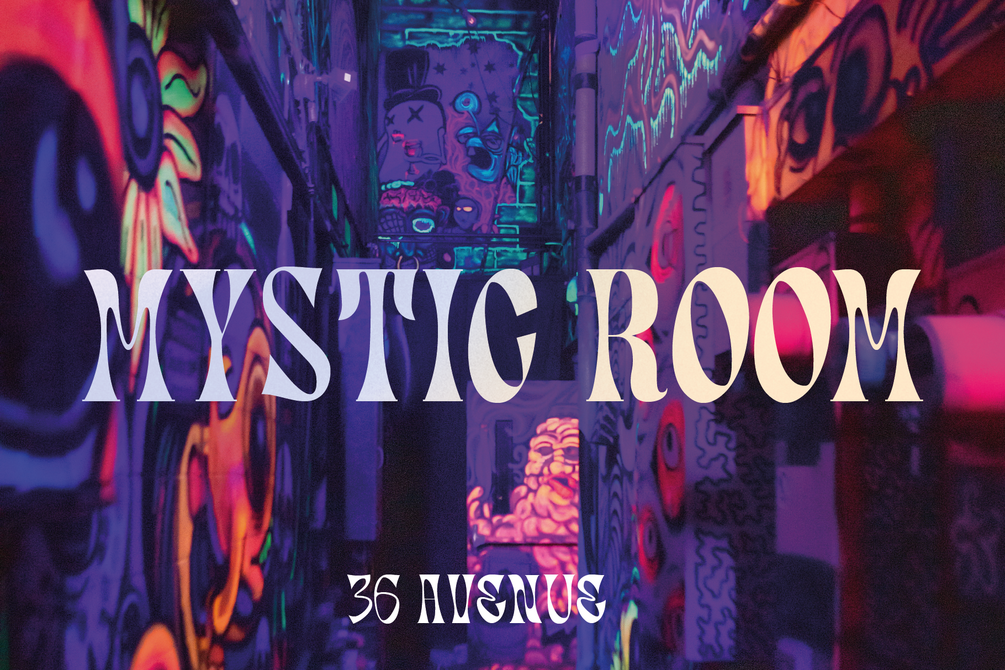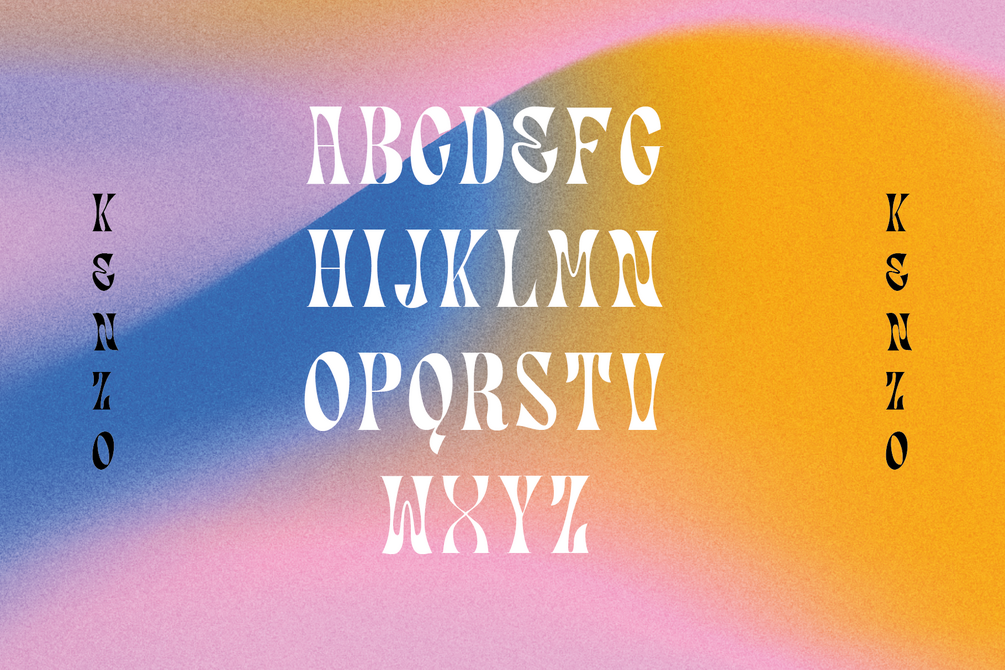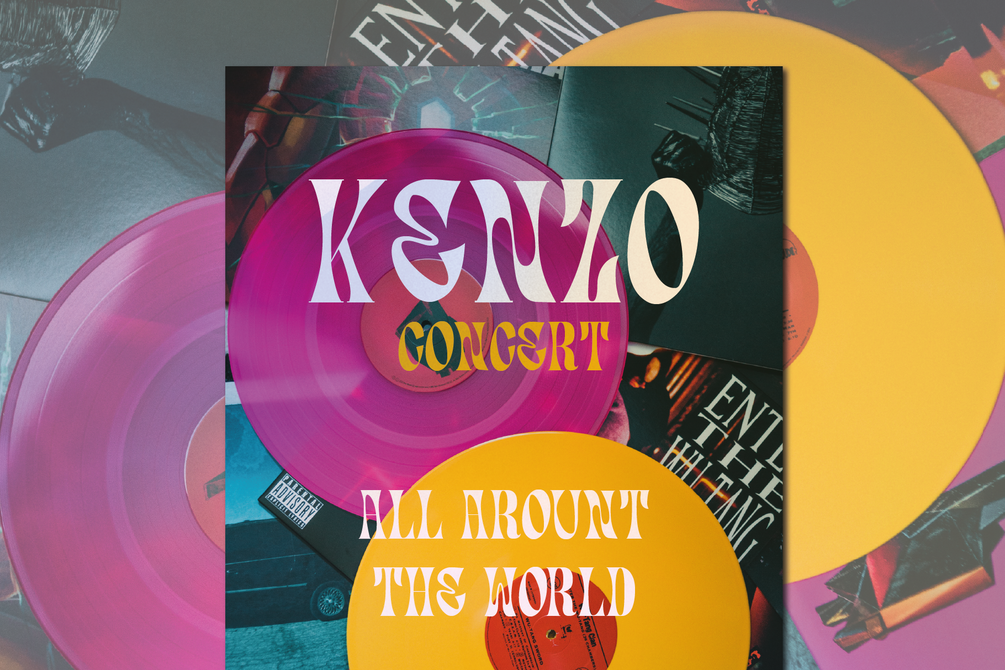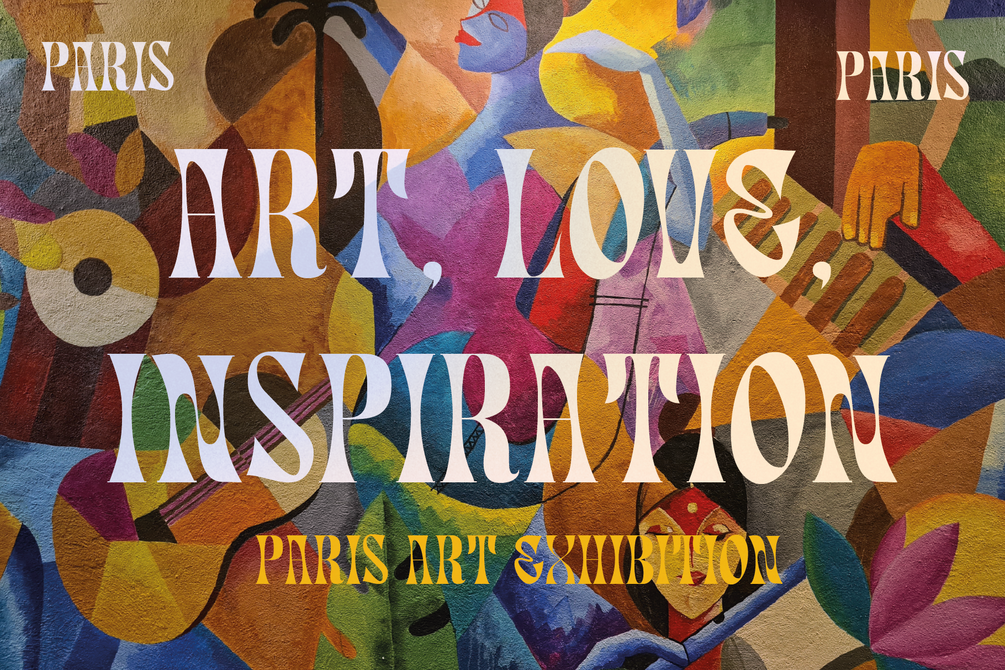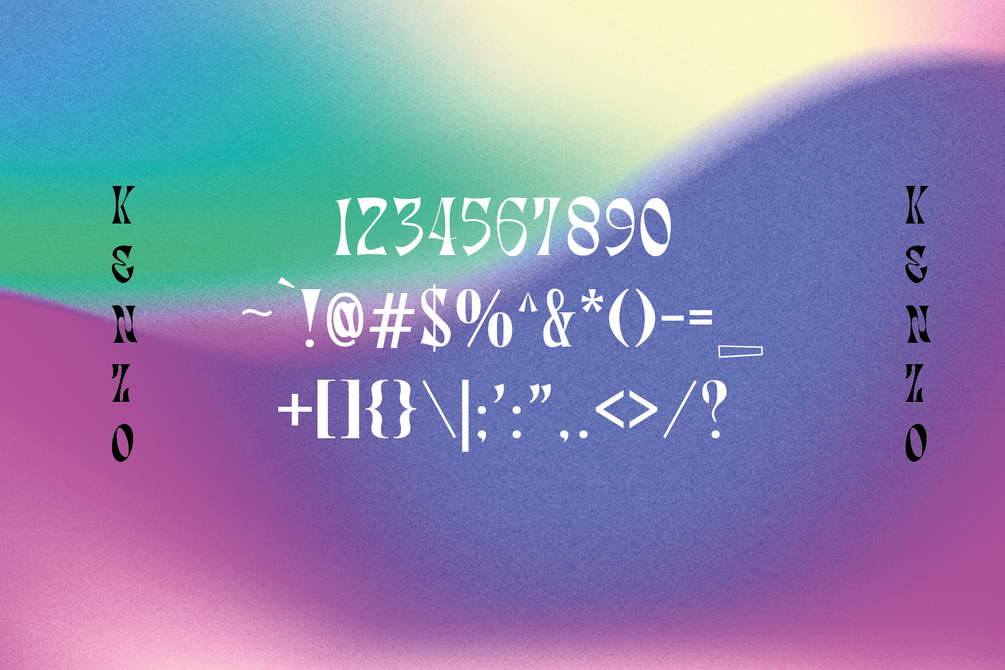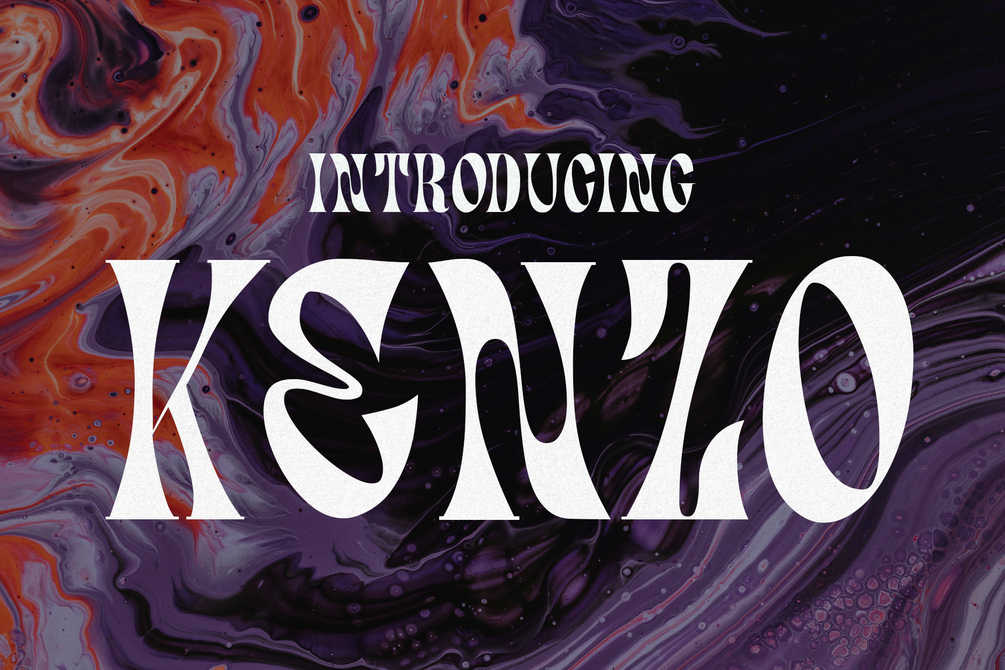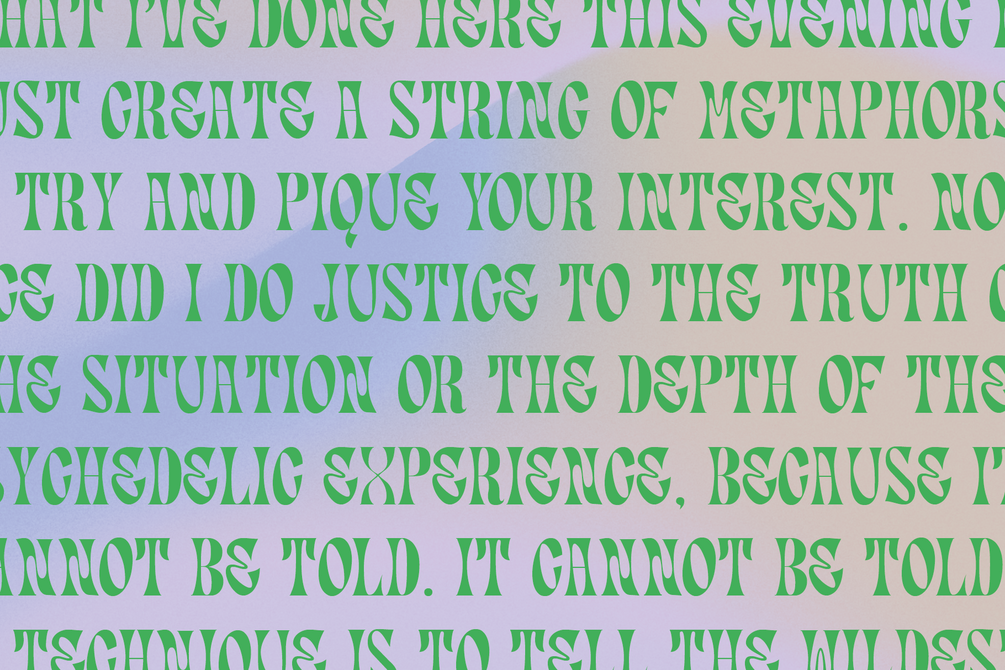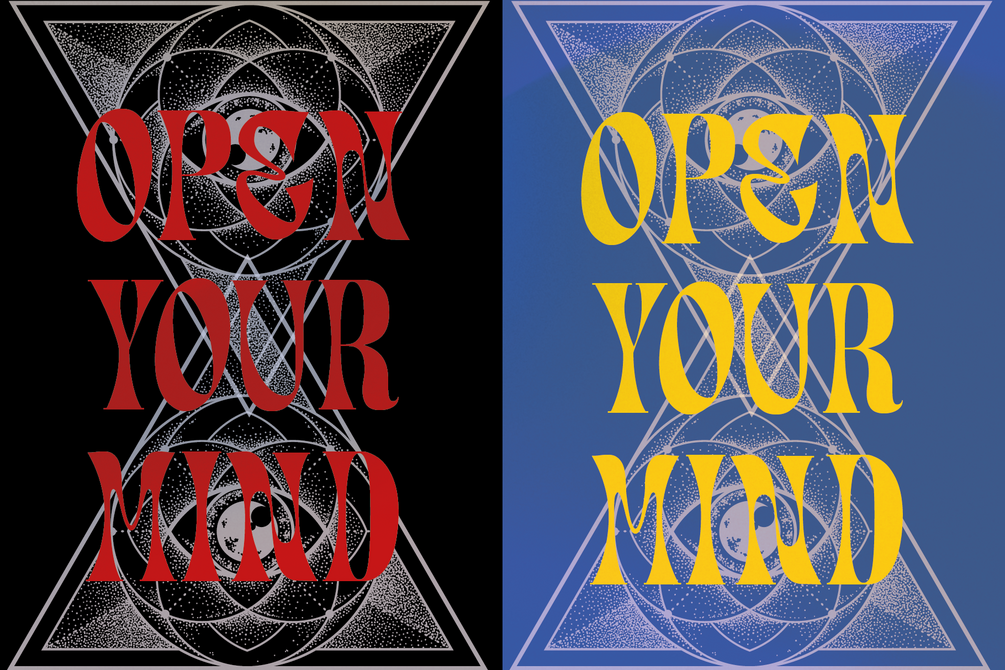
Kenzo - Psychedelic Typeface
Kenzo is a groovy psychedelic typeface. Its unique letter forms makes this font perfect for groovy band posters, hippy logos, social media posts, packaging, magazine covers, and more. Evoke wavy hippie vibes that hark back to the carefree 1960s/1970s with Kenzo today!